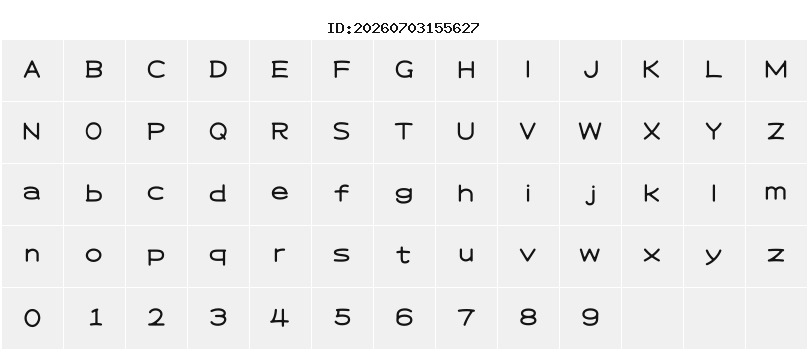
301-上首言亭体 Preview
About 301-上首言亭体.ttf
301-上首言亭体.ttf is a modern, elegant sans-serif font designed for ultimate readability and visual harmony. Perfect for branding, headlines, web design, and print materials.